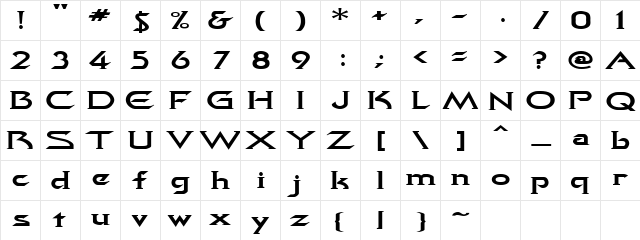
QuasarExtended Regular
Design Context for QuasarExtended Typeface
QuasarExtended offers clean, dependable letterforms without strong stylistic allegiance, making it a practical choice for designers who need flexibility.